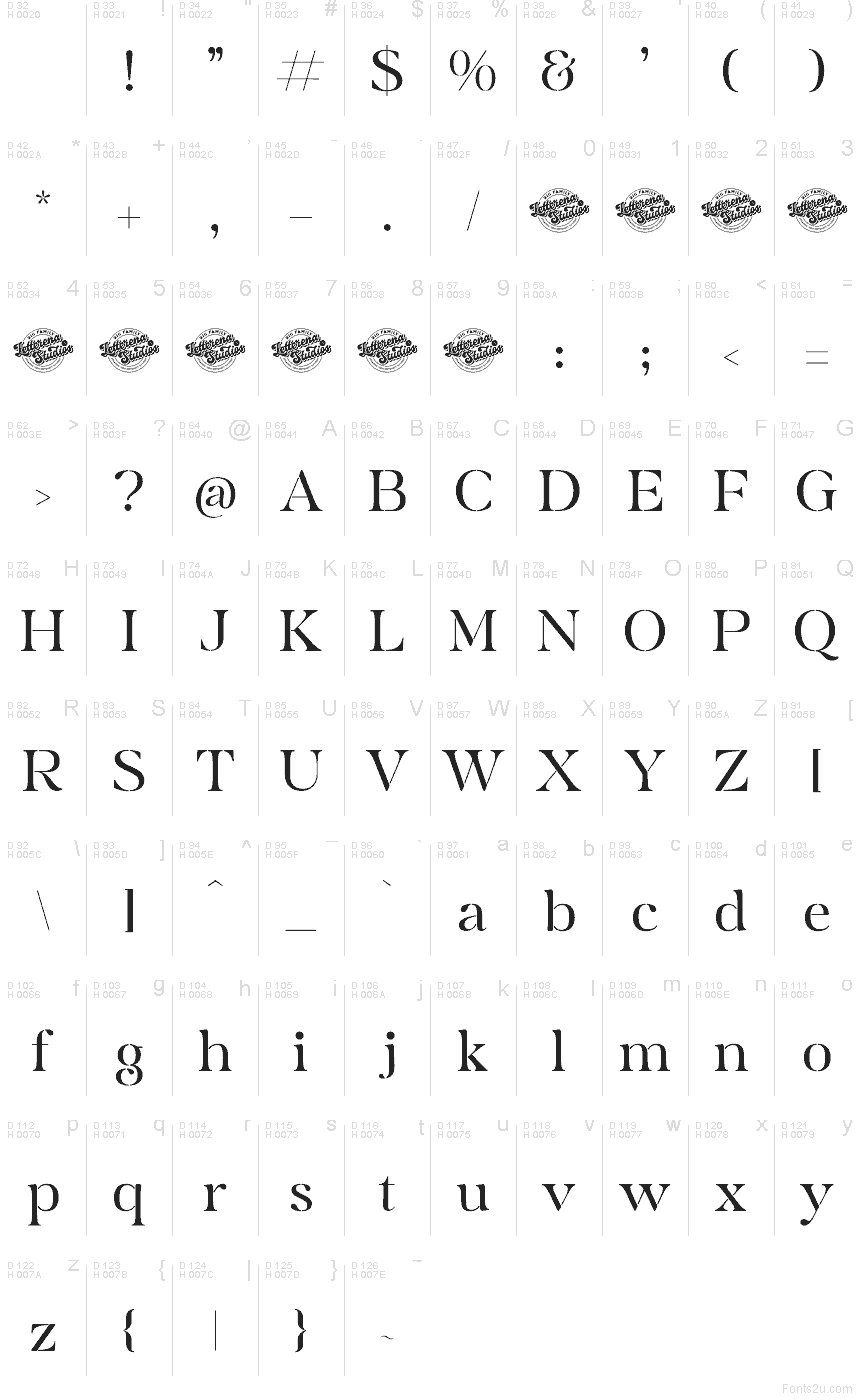
Mergila DEMO VERSION
Mergila font by Letterena Studios is a free elegant serif typeface with a dramatic, sculpted rhythm that instantly feels luxurious. Thick inky strokes melt into fine hairlines, while the rounded, drop-shaped details give each letter a sense of motion and polish. The overall effect is poised but expressive, like carefully brushed calligraphy translated into crisp digital form.
Using Mergila, headlines gain a graceful weight that doesn’t need extra ornament to stand out. This free font works beautifully for boutique branding, perfume or skincare packaging, magazine covers, book jackets, wedding invitations, and expressive posters. Set it large to let the sweeping curves breathe, and pair it with a simple geometric sans for body text to keep layouts balanced and modern.